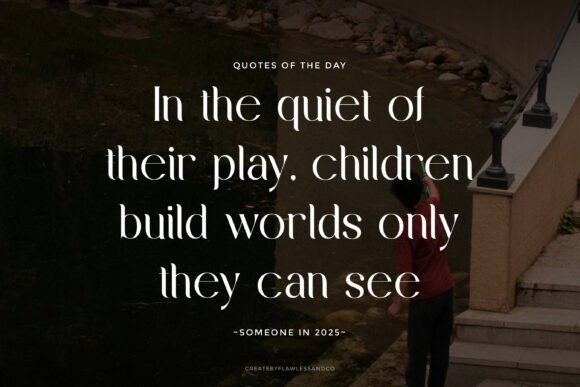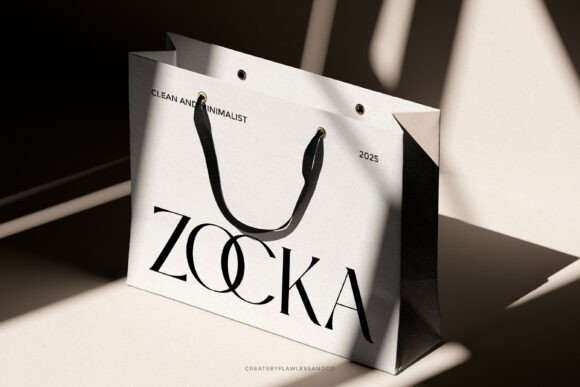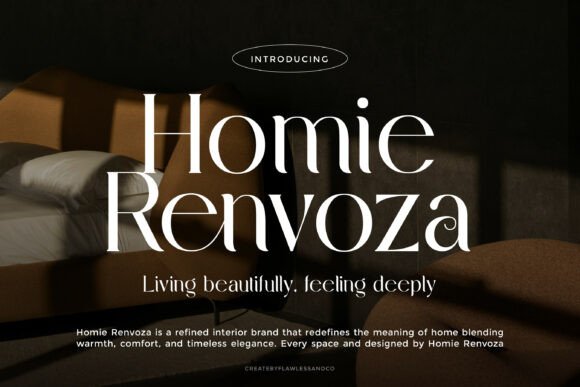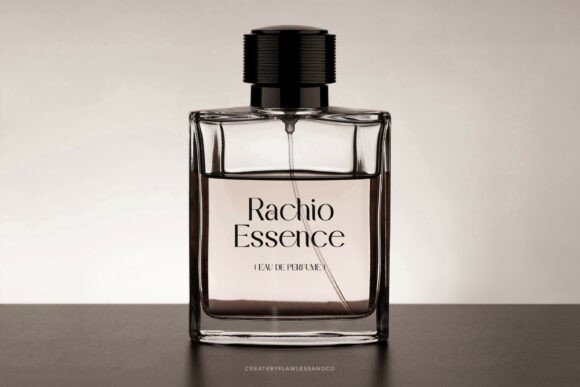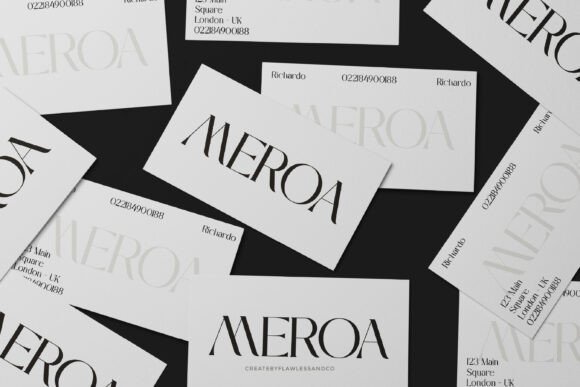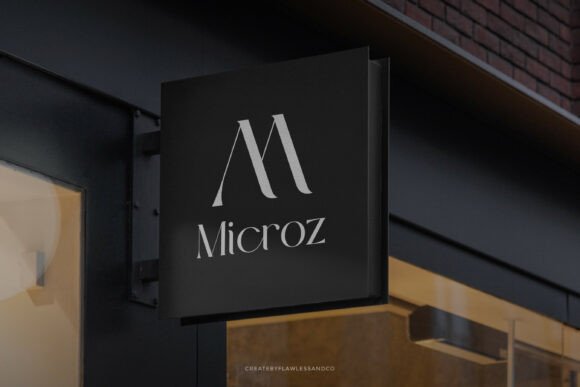
Introduction to Mebiola Font
Have you ever been captivated by the opening credits of a classic film or the elegant typography of a high-end fashion magazine? Those moments are often defined by a single, striking font – one that sets the tone for the entire creative project and leaves a lasting impression on the viewer. That’s exactly what the Mebiola Font achieves, elevating any design to new heights with its refined elegance and cinematic flair.
As a designer, you’re constantly on the lookout for the perfect design resource to elevate your work. Mebiola Font is a game-changer, offering a unique blend of high-contrast strokes, artfully sculpted serifs, and sweeping curves that will transport your audience to a world of luxury and drama.
Key Features of Mebiola Font
- Includes a range of characters, including uppercase and lowercase letters, numbers, and special characters, making it a versatile design resource.
- Designed to be easily scalable, making it suitable for use in both small and large-scale design projects, from logos to signage.
Honest Review: Mebiola Font
I recently came across the Mebiola Font while searching for a free design resource for my creative project, and I must say it’s been a pleasant surprise.
Here are some aspects that work well:
- ✨ Elegant and modern design that’s perfect for a variety of applications, from web design to print materials.
- ⚠️ Limited character set, which may not be suitable for projects that require extensive text formatting.
Overall, I’d say the Mebiola Font is a solid addition to any designer’s toolkit. While it may not be perfect, its elegant design and high-quality files make it a great choice for creative projects. Just be mindful of its limitations and adjust your expectations accordingly.
Tips for Getting the Most Out of Mebiola Font
For the best results, use Mebiola Font with a transparent background to create a clean and modern design. Experiment with different font sizes and colors to add depth and visual interest to your project. Consider using Mebiola Font in combination with other high-quality design resources to create a unique and eye-catching design.
Mebiola Font is perfect for a variety of creative projects, including logos, business cards, brochures, and social media graphics. Its high-quality design and transparent background make it ideal for use in digital and print designs.